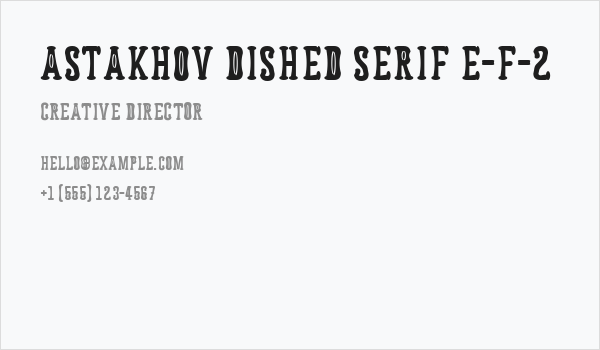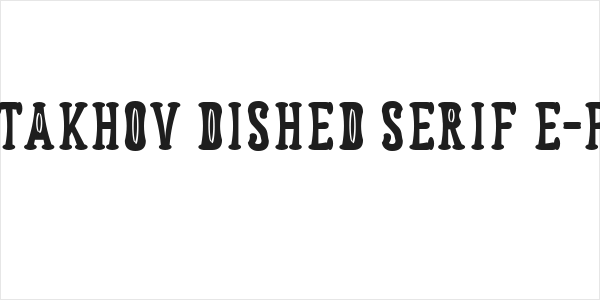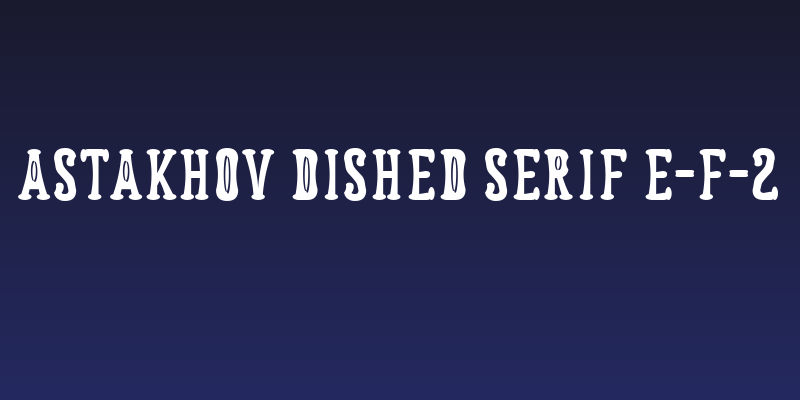
Astakhov Dished Serif E-F-2 Font
Astakhov Dished Serif E-F-2 Description
This font features a bold and decorative style with unique, exaggerated serifs that give it a playful and eye-catching appearance. The characters are robust and slightly condensed, with a whimsical flair that makes them stand out. The uppercase and lowercase letters maintain a consistent style, with the numbers and special characters following suit. The font's design is reminiscent of vintage circus or carnival posters, with a touch of modernity in its clean lines and balanced proportions. The overall look is both nostalgic and fresh, making it versatile for various creative applications.